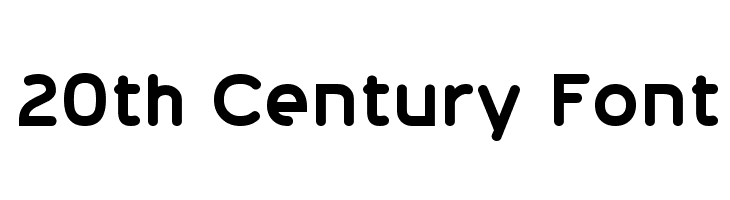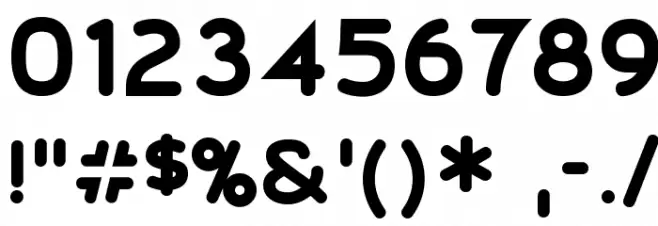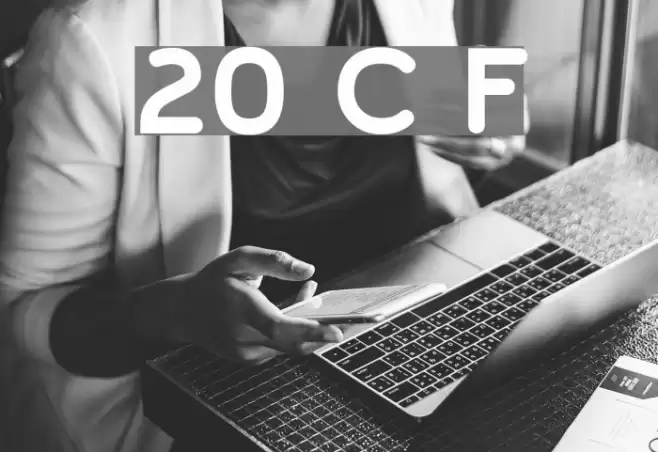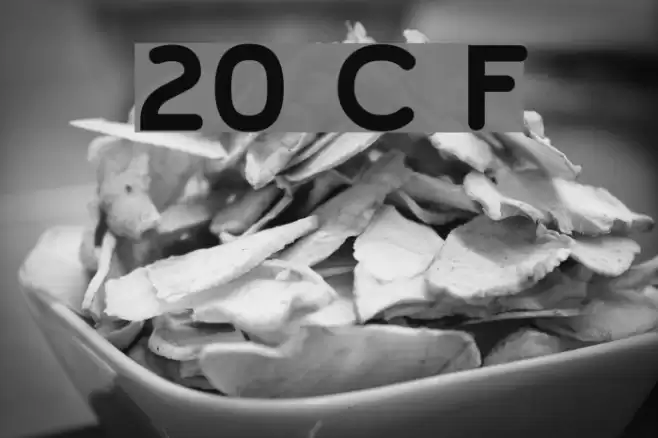
20th Century Font Font
20th Century Font Description
This font features a clean and modern sans-serif style with rounded edges, giving it a friendly and approachable appearance. The characters are evenly spaced, contributing to its readability. The design is simple yet effective, making it versatile for various applications. The uniform stroke width across all characters provides a consistent look, while the rounded terminals soften the overall aesthetic. This font is suitable for both digital and print media, offering a contemporary feel that aligns well with modern design trends.
| Use Case | Headlines, Body text, Logos |
| Proposed Projects | Ideal for branding, web design, advertising, and user interfaces due to its clarity and modern appeal. |